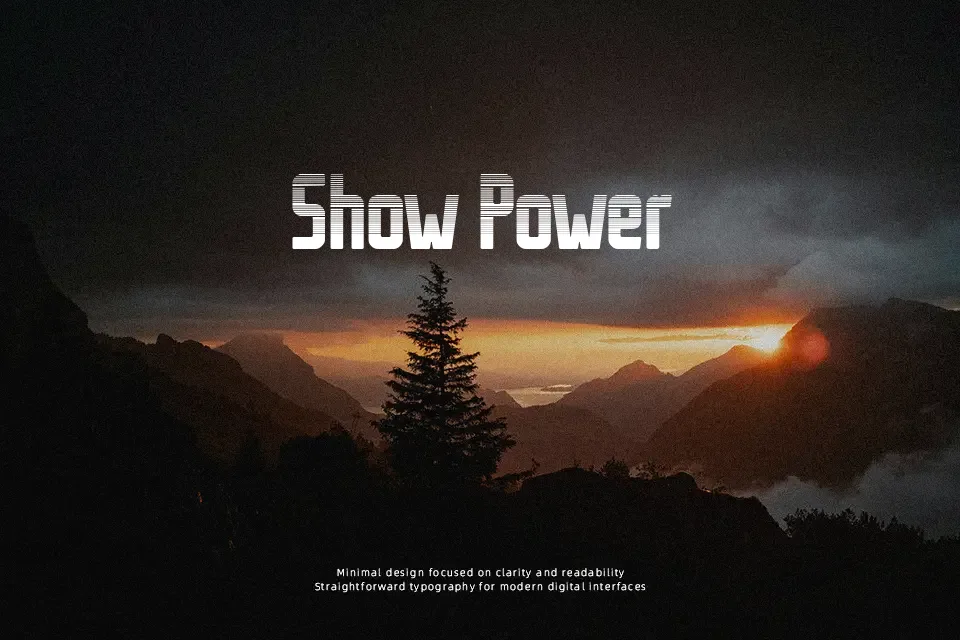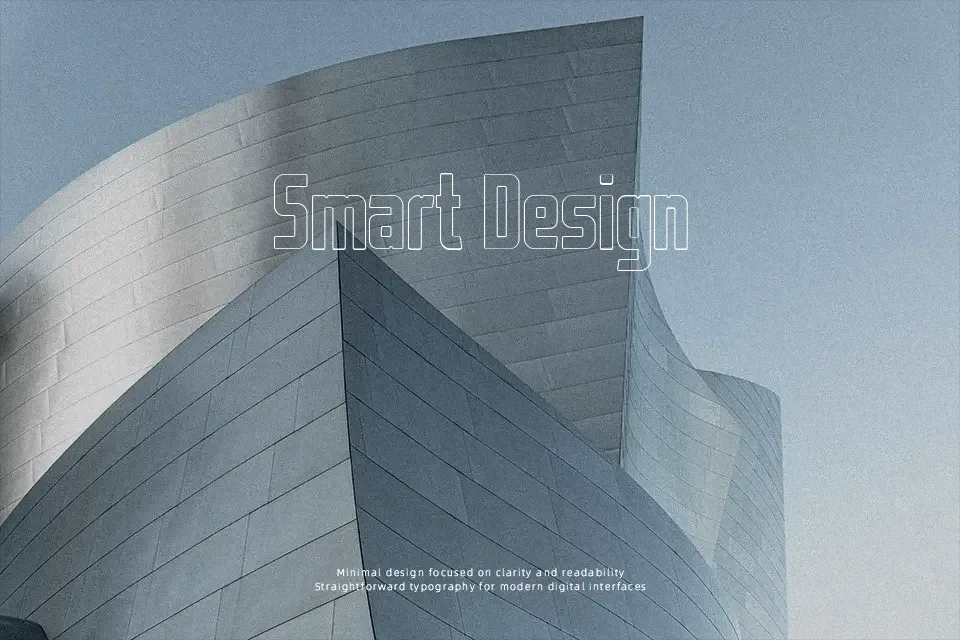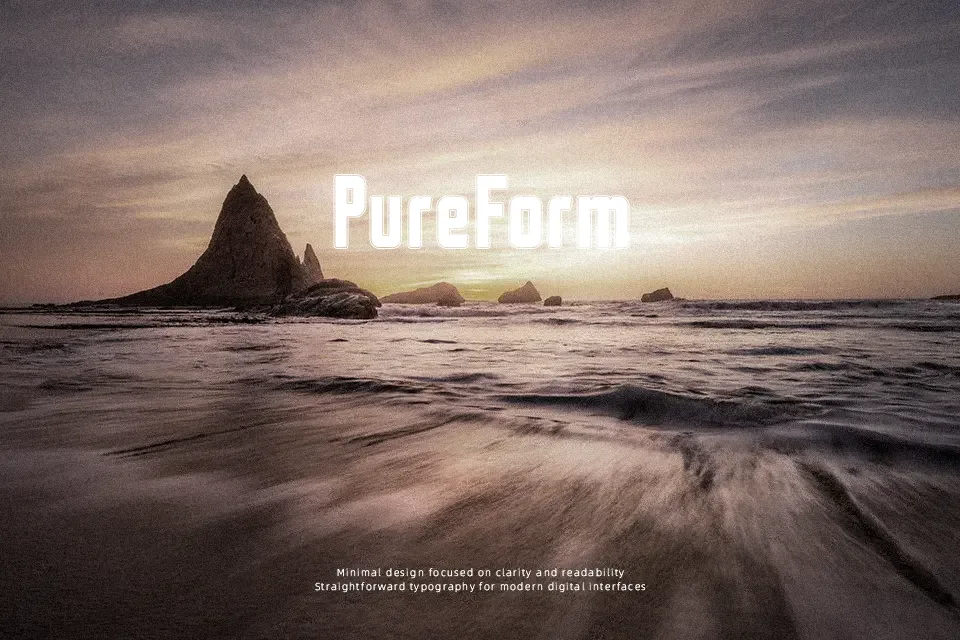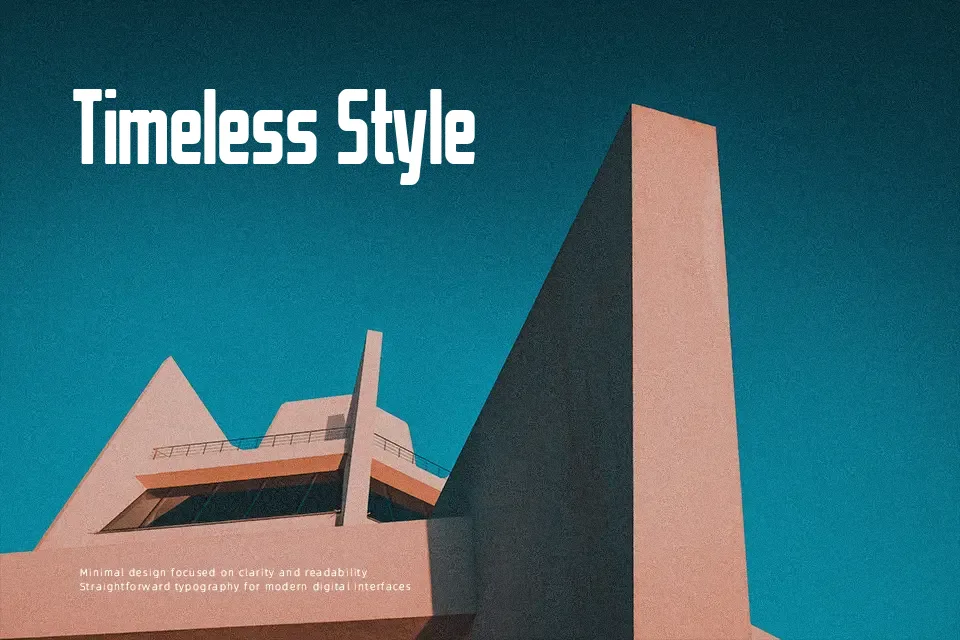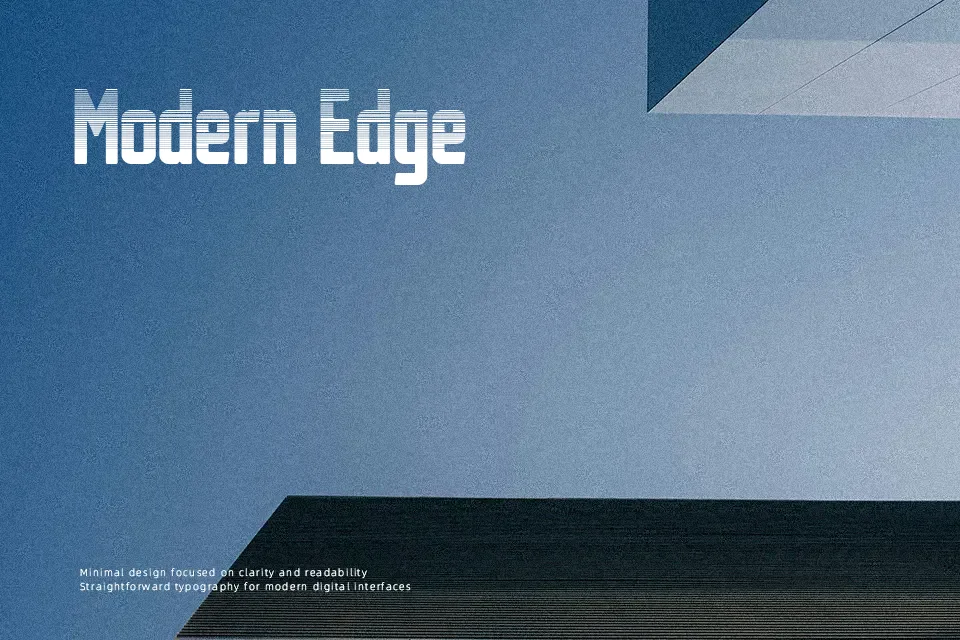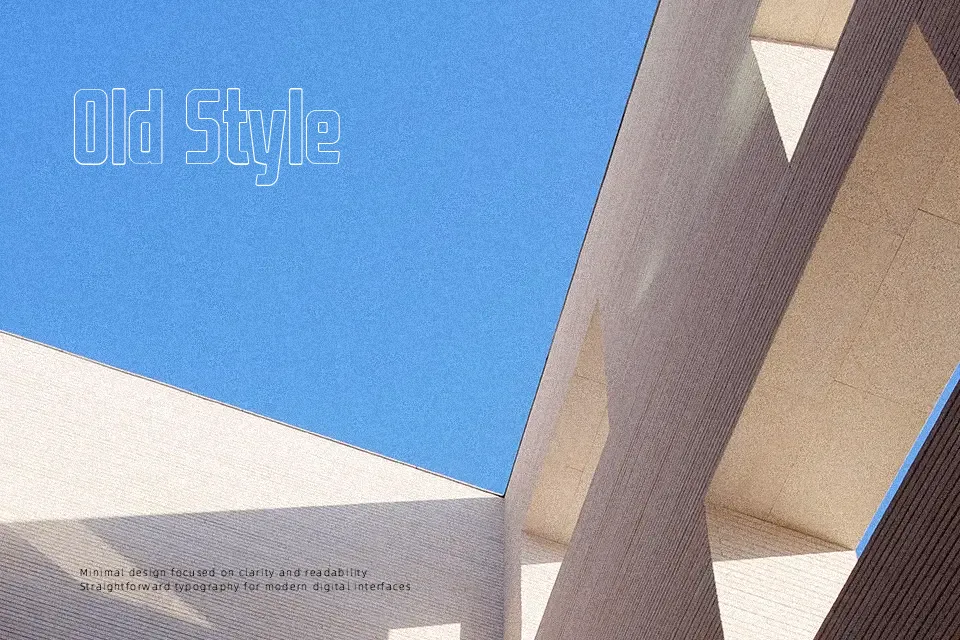
Stahlbetontraeger Font
Designed by Nils von Blanc
Stahlbetontraeger Font uses narrow, geometric letterforms with firm strokes, squared construction, and an intentionally rigid display rhythm. Its compressed proportions create a dense, vertical texture that holds attention in large words, especially when used for poster titles, music artwork, clothing prints, or compact logo treatments. The close visual fit between characters gives headlines a unified block-like presence, while the uppercase forms remain distinct at display sizes. It is less comfortable for paragraphs or small labels, where the tight, decorative construction can slow reading. The typeface works best when given room to function as a graphic element rather than continuous text.
Perfect for fashion, headline, and logo, with a bold and condensed style.